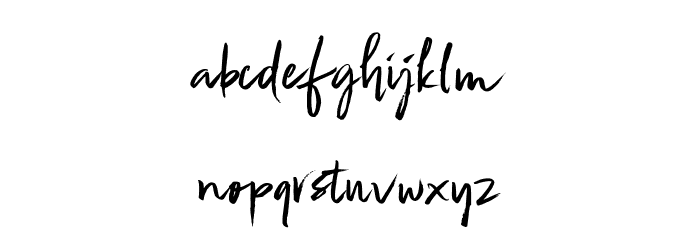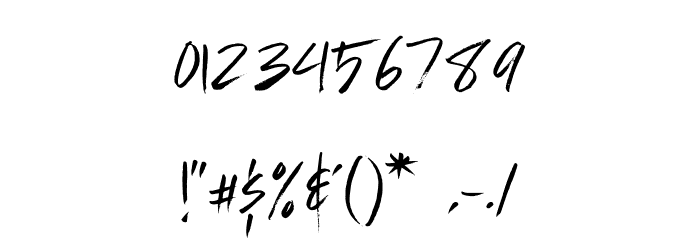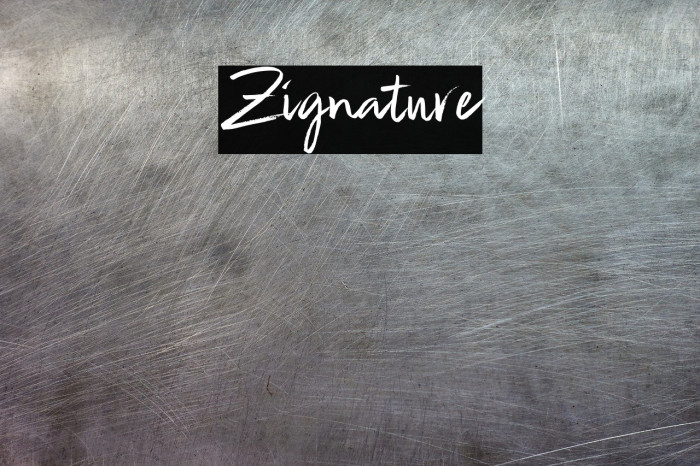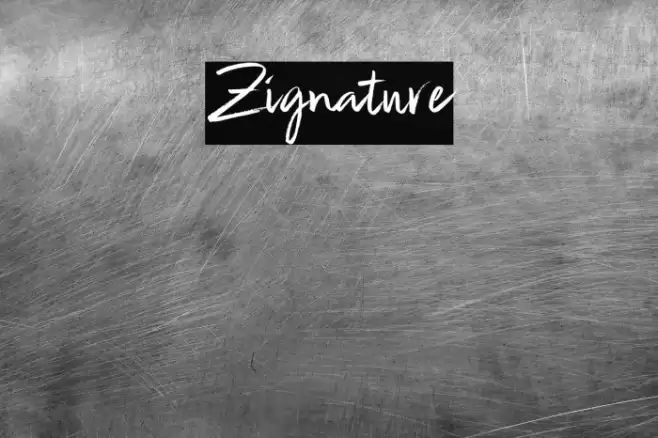
Zignature Font
This font features a dynamic and expressive handwritten style, characterized by its fluid strokes and natural flow. The uppercase letters exhibit a bold and confident appearance, with varying stroke widths that add a sense of movement and energy. The lowercase letters maintain a consistent style, offering a harmonious blend of elegance and casual flair. Numbers and special characters are crafted with the same attention to detail, ensuring a cohesive look across all text elements. The overall design is both artistic and legible, making it suitable for a wide range of creative applications.
A dynamic handwritten font with fluid strokes and expressive style.
- Proposed Projects: Ideal for branding, invitations, greeting cards, and social media graphics.
- Use Case: Logos, Headlines, Invitations